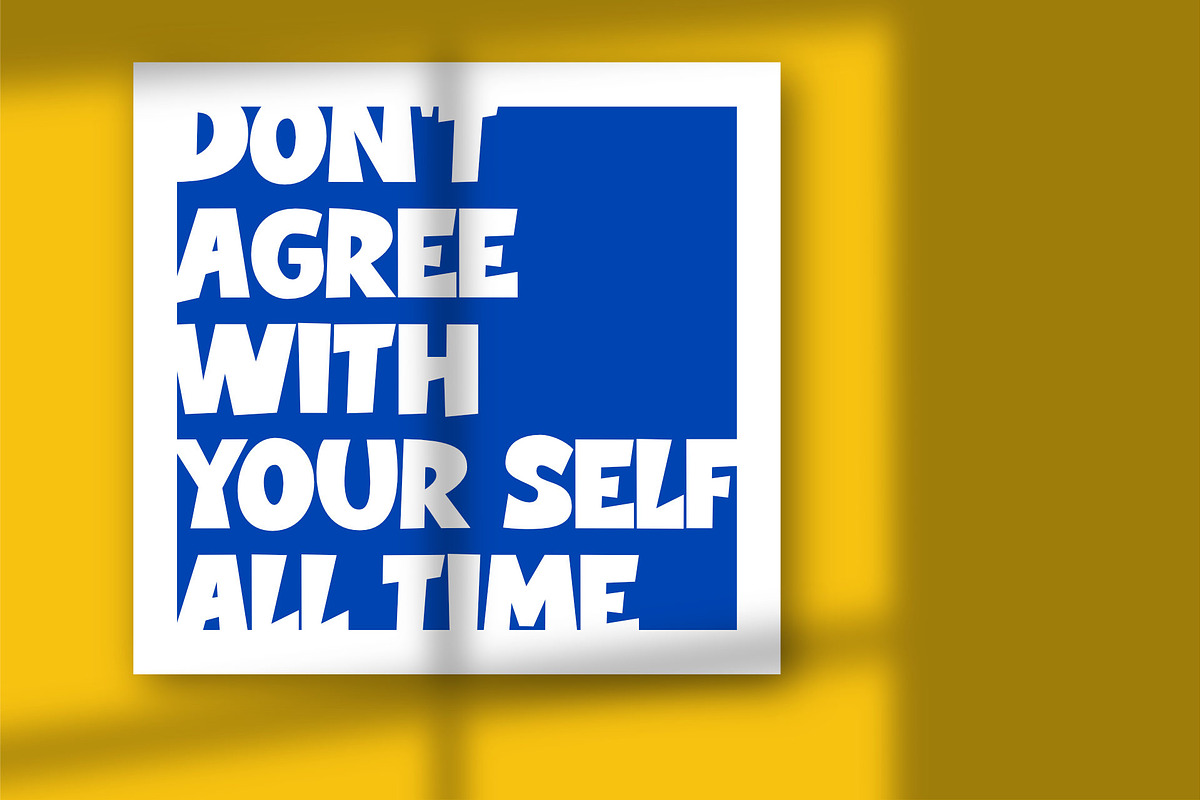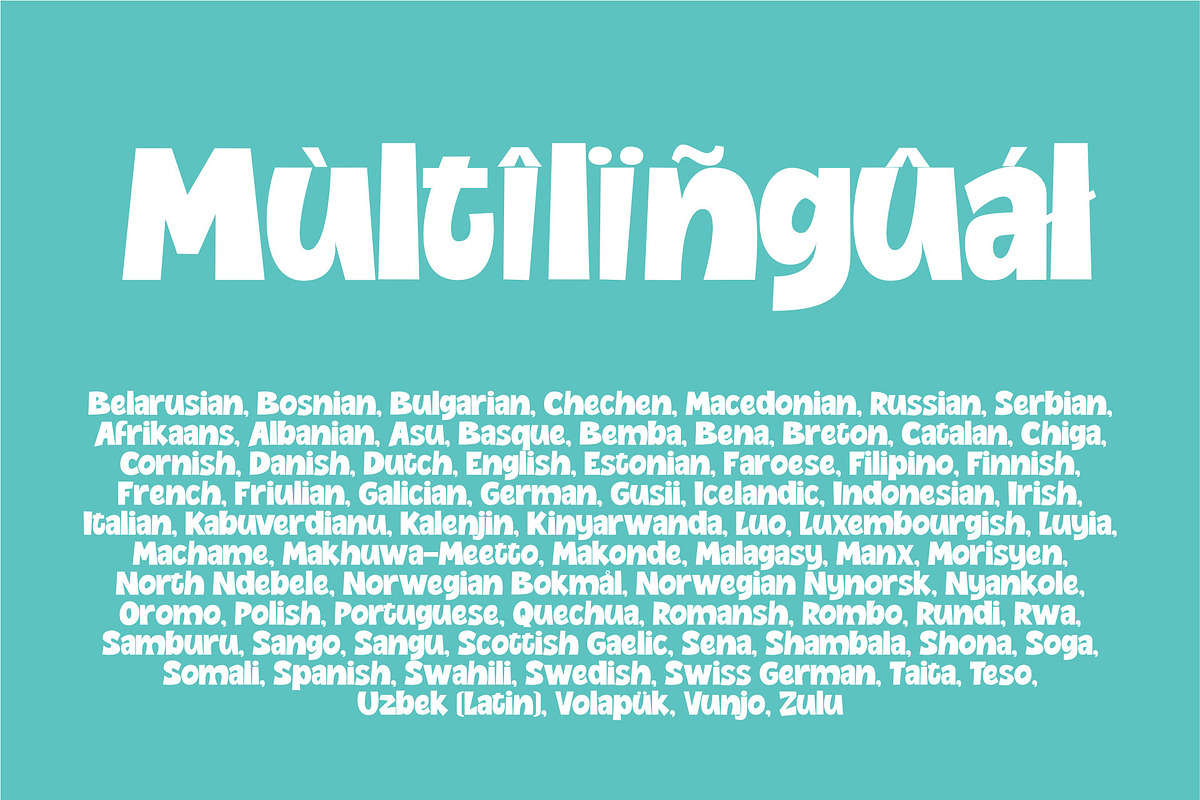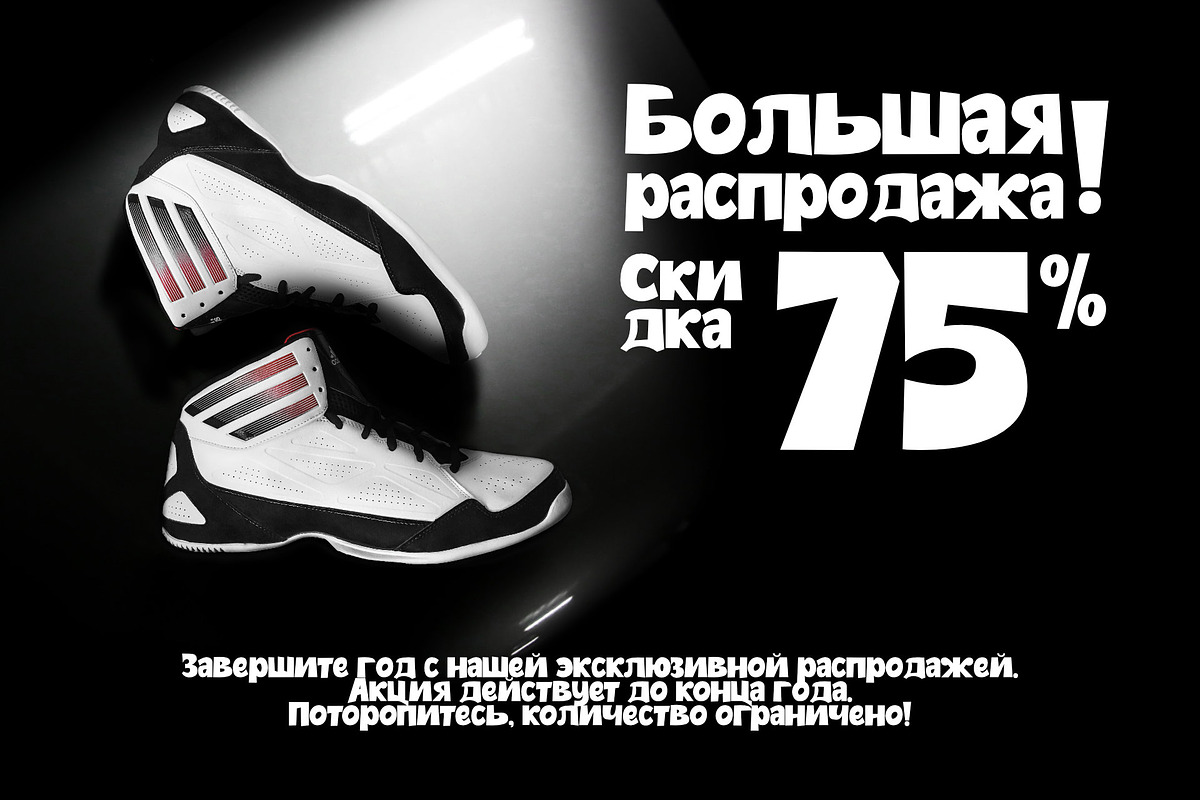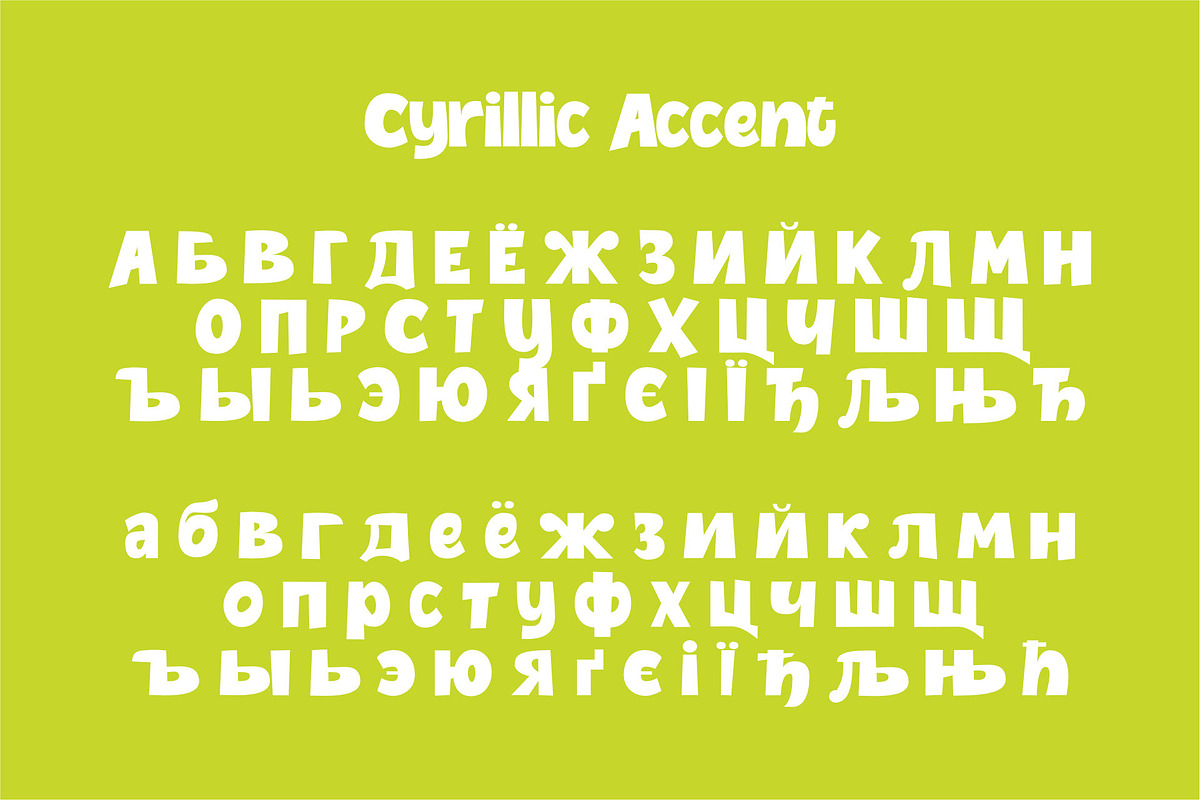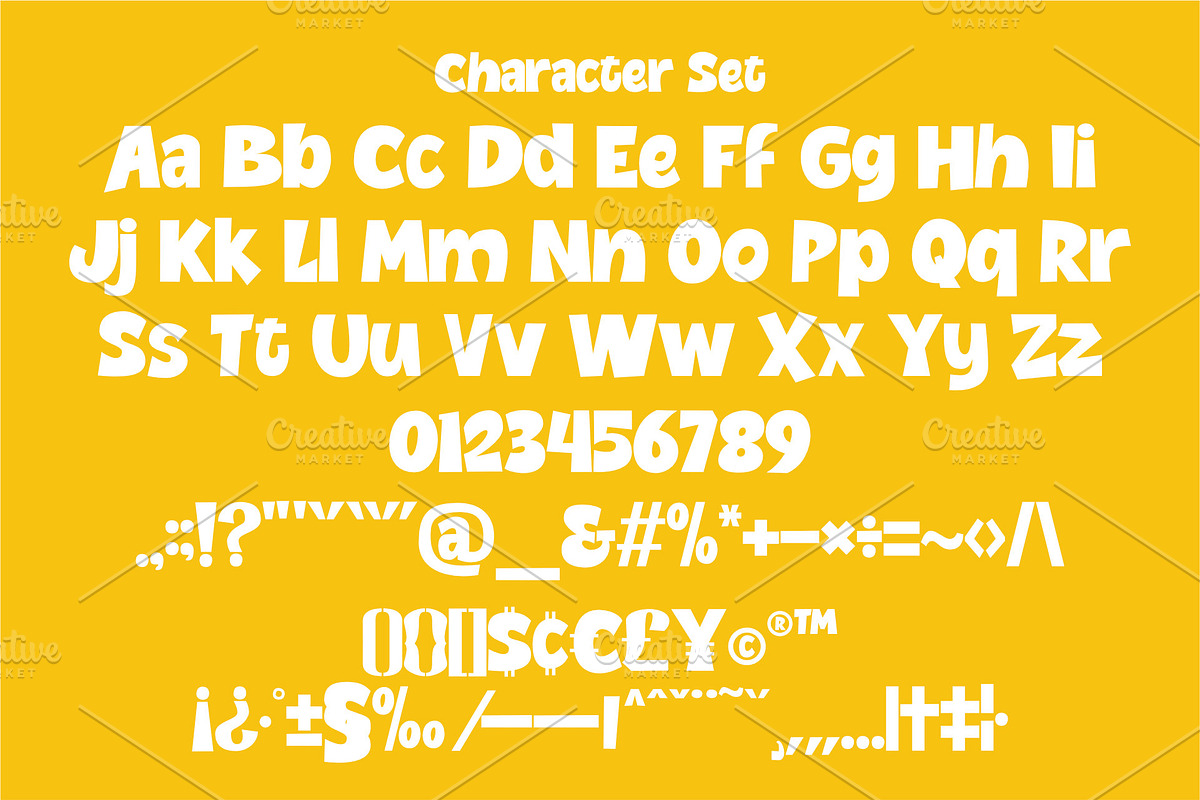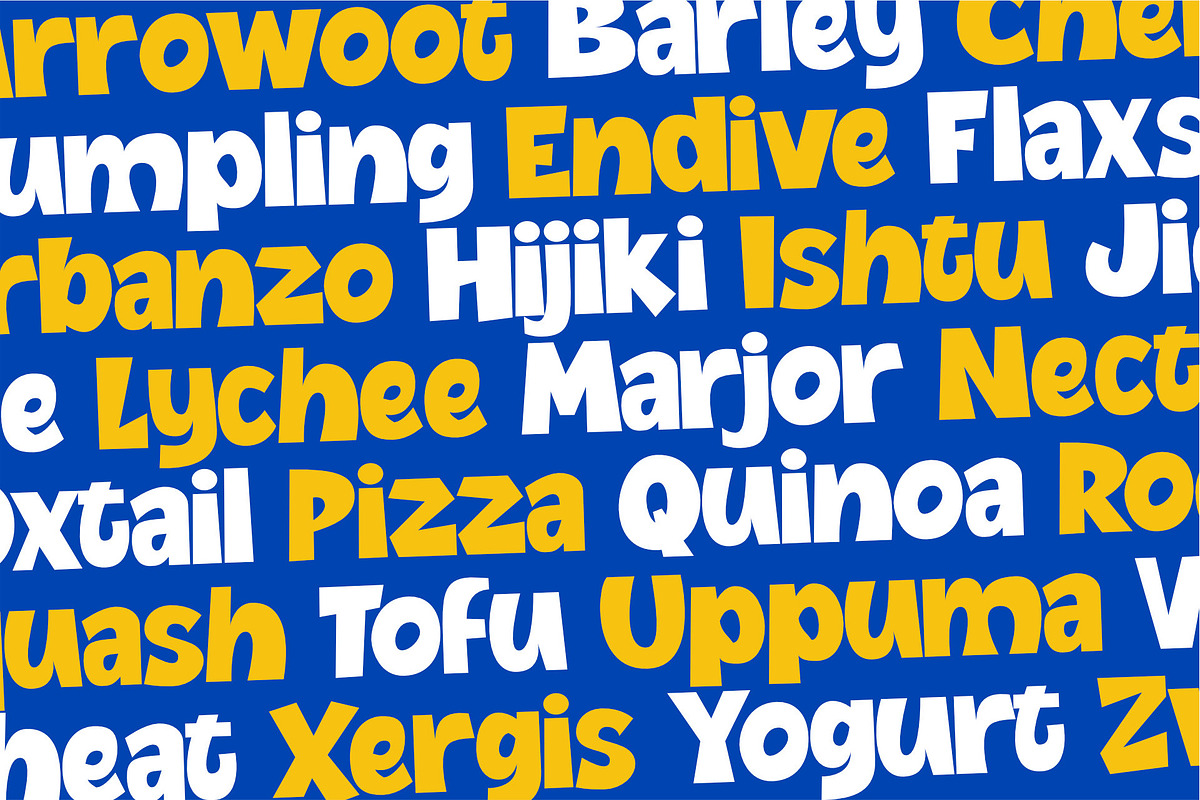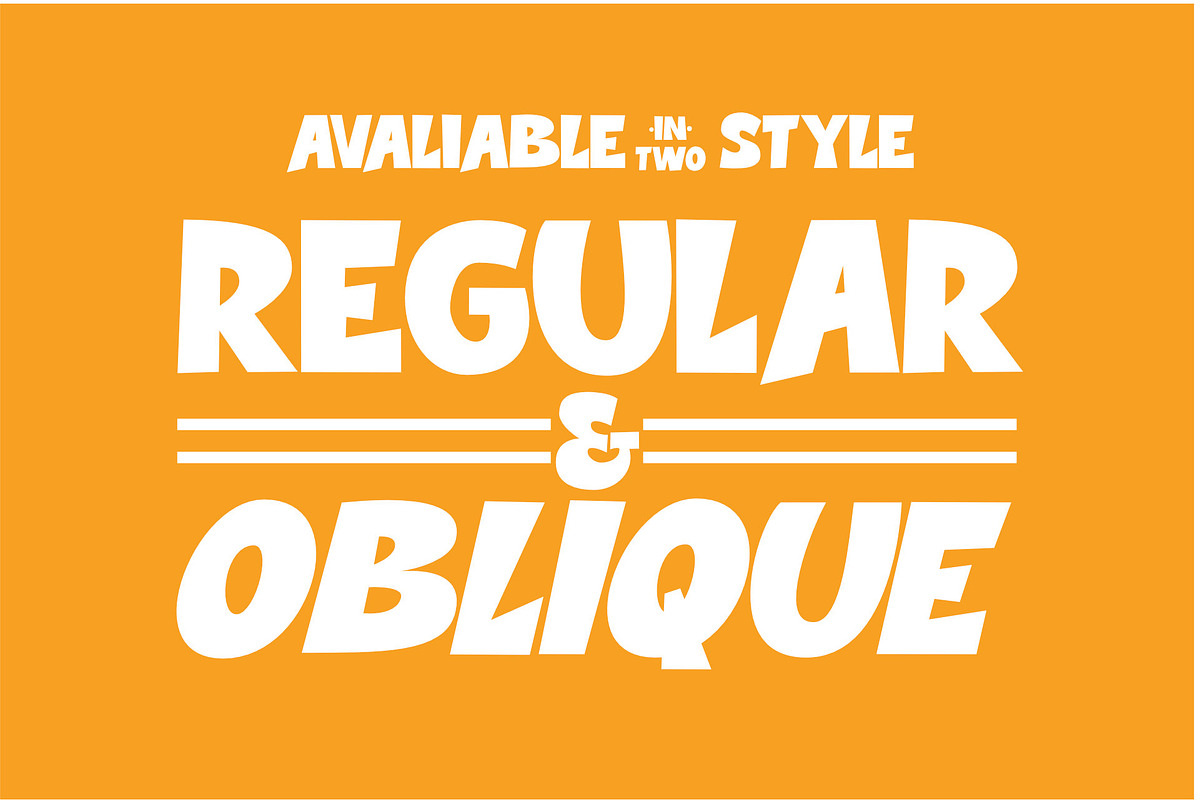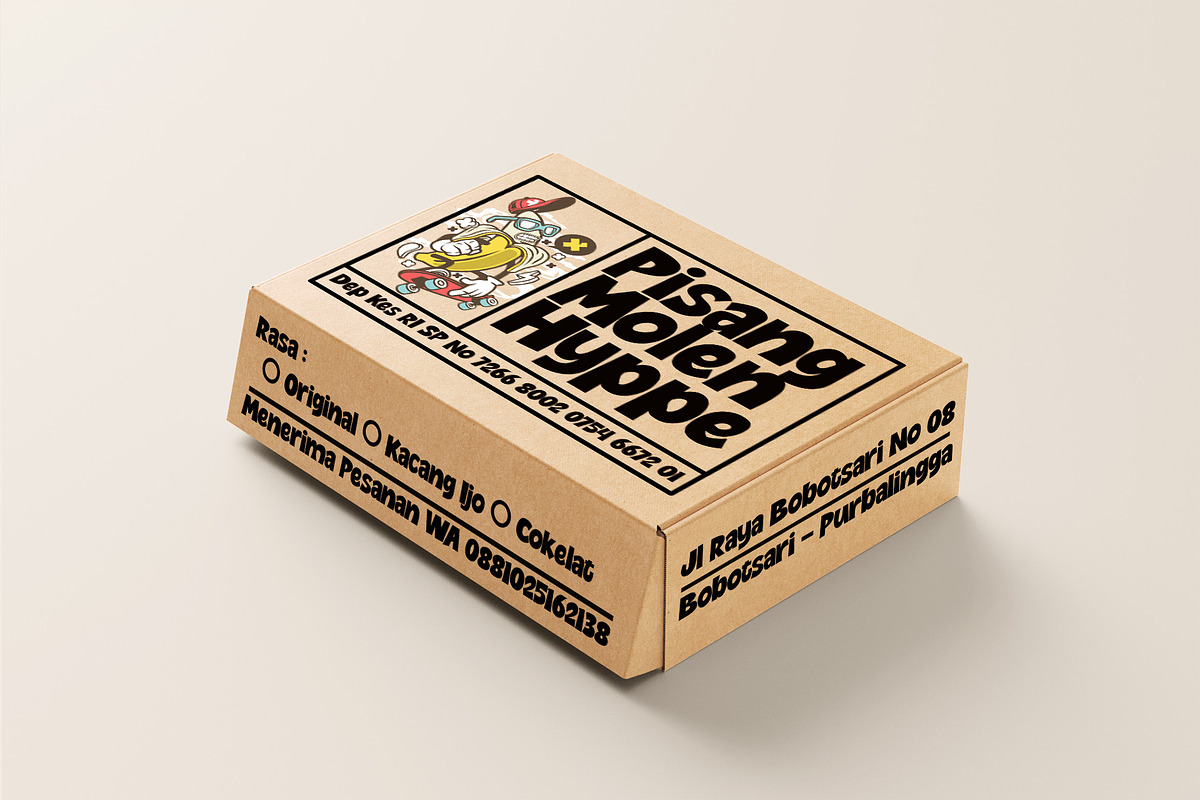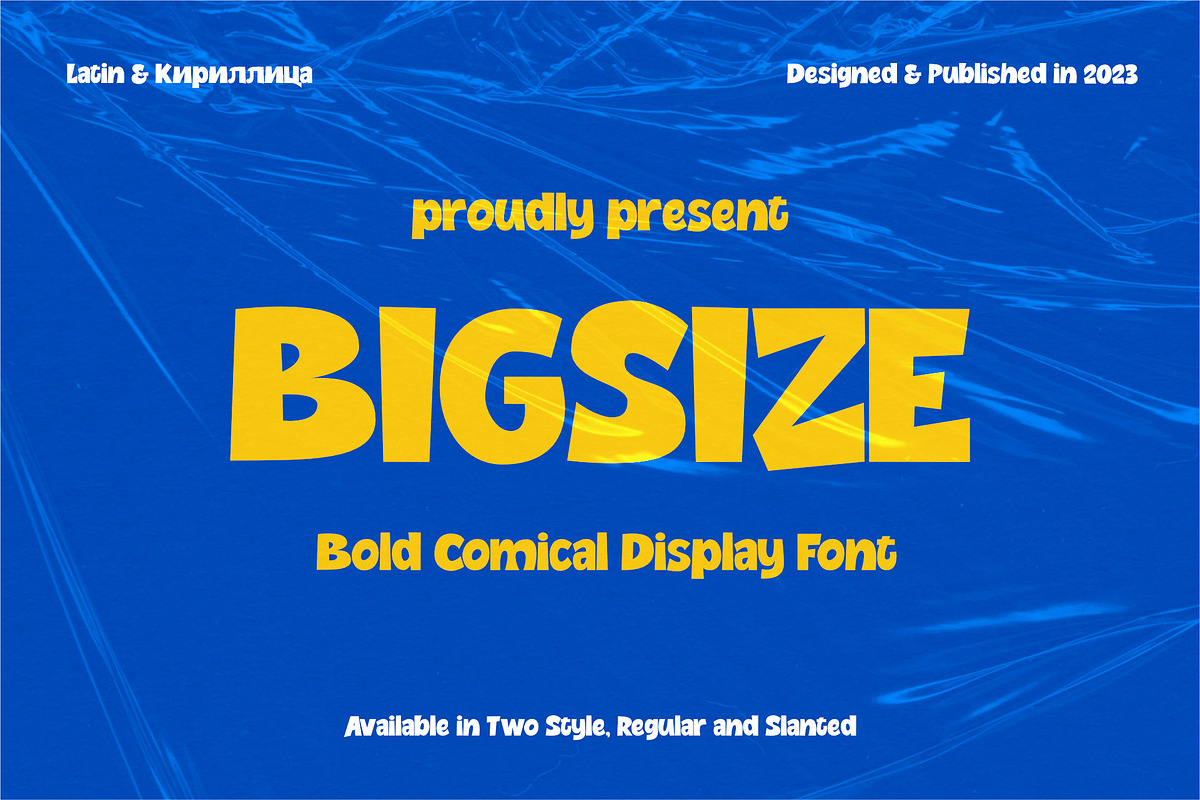
Bigsize | Bold Comical Display
Unleash the playful vibes with Bigsize, a vibrant display font crafted to command attention and inject a dose of fun into any design. The bold, rounded letterforms make it a perfect choice for titles, headlines, and product packaging. Its whimsical charm also positions it as an ideal companion for brands targeting a youthful or lighthearted audience.
Bigsize isn't just about fun; it's designed to be both playful and functional. Its readability, even at larger sizes, ensures that your message shines through. The font's distinctive style is a testament to the designer's creative exploration of letterforms, resulting in a typeface that strikes the perfect balance between playfulness and legibility.
With over 350 glyphs, including support for broad Latin and Cyrillic languages, Bigsize proves its versatility across various design projects. Whether you're working on posters, billboards, logos, or digital ads, this font is your ticket to making a bold and memorable statement.
Whether you're crafting a poster, developing packaging for a brand, or spearheading an advertising campaign, Bigsize is the font that will set your project apart. Its bold and comical aesthetic captivates your audience's attention, while its readability ensures your message resonates effortlessly."